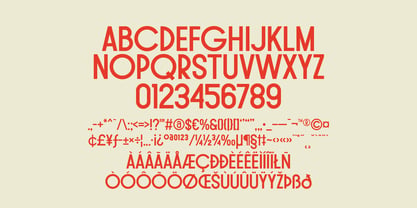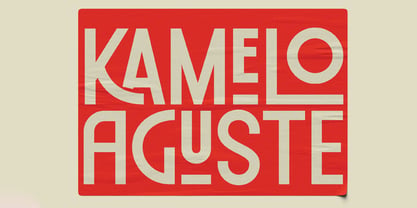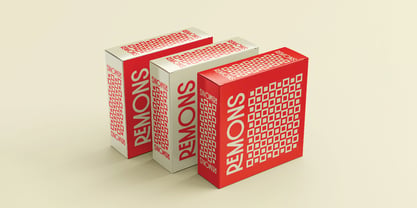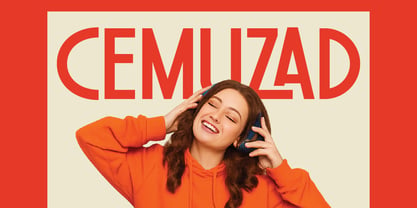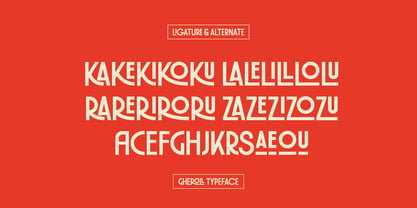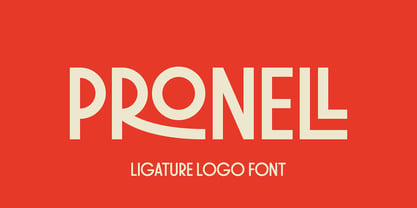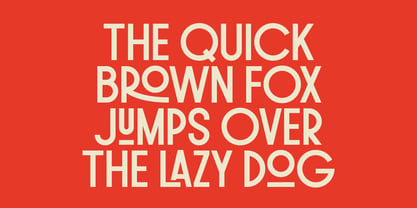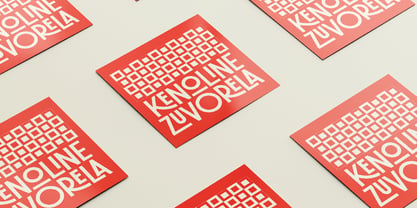
Pronell Display
by Typebae
The Pronell Display Font Family was designed by Iqbal Pauji and published by Typebae. Pronell Display contains 1 styles. More about this family
Pronell is a unique display font that blends retro vibes with modern geometric shapes, making it perfect for posters, branding, packaging, logos, headlines, and social media graphics. With clean lines, bold energy, and playful ligatures, Pronell gives your design a distinctive and stylish look. What’s Included: - All Caps, Numerals & Punctuation - 21 Ligatures & 14 Stylistic Alternates - Multilingual Support & PUA Encoded